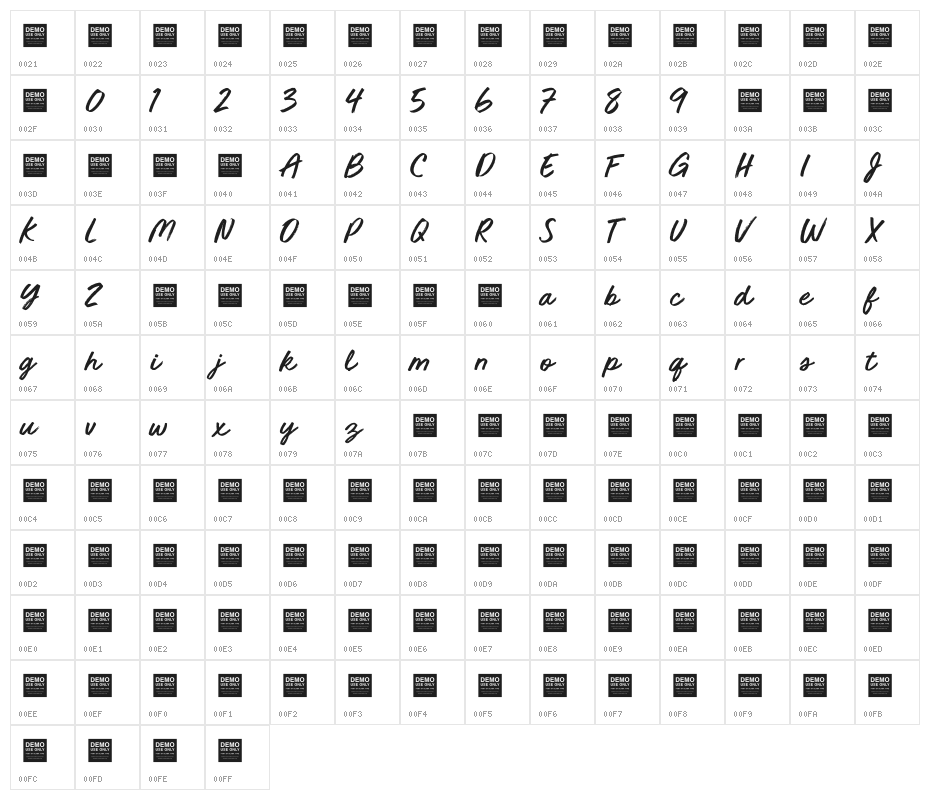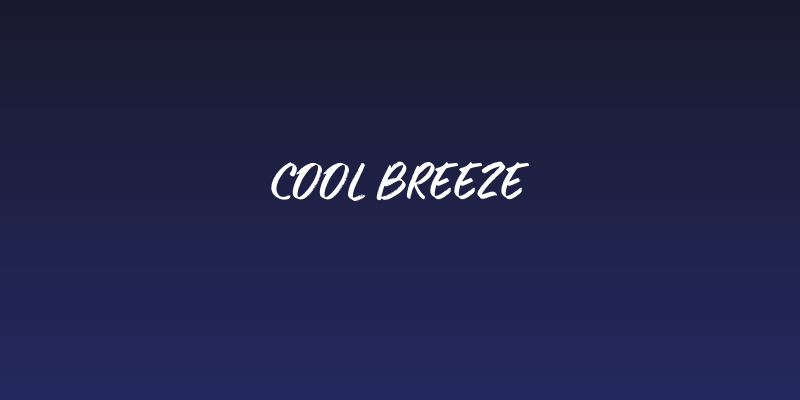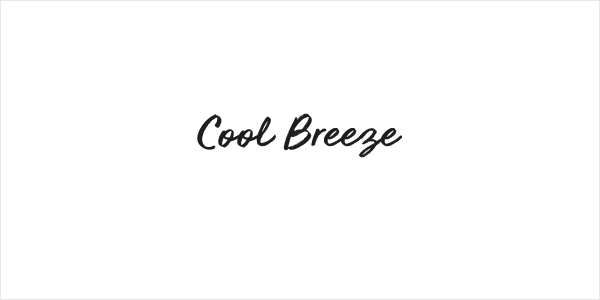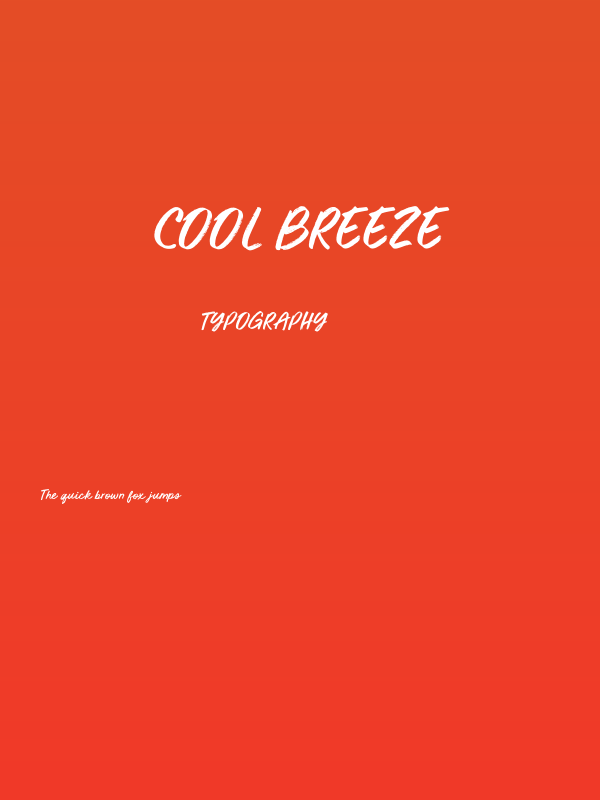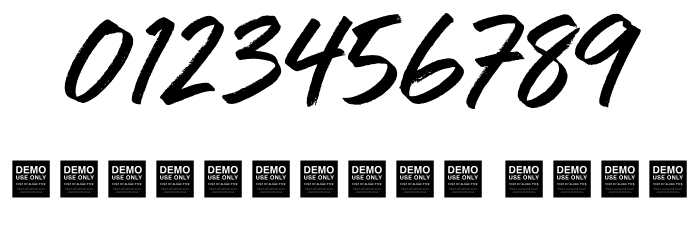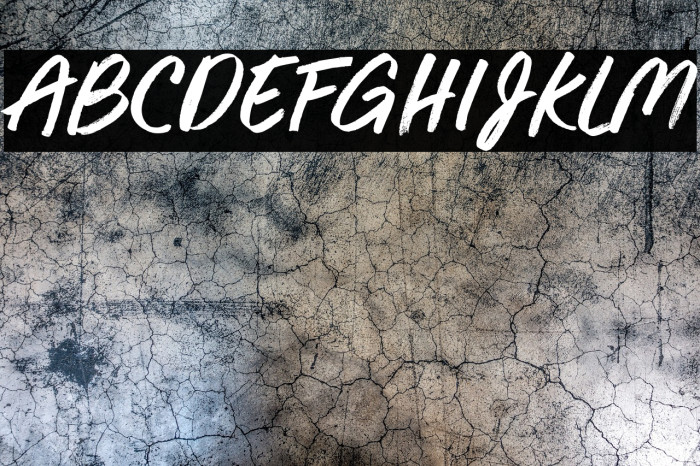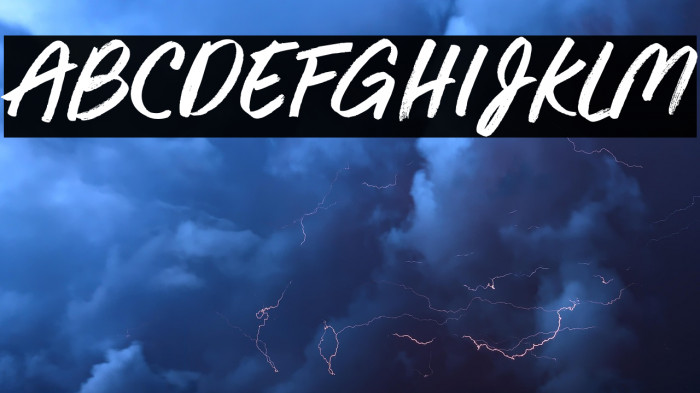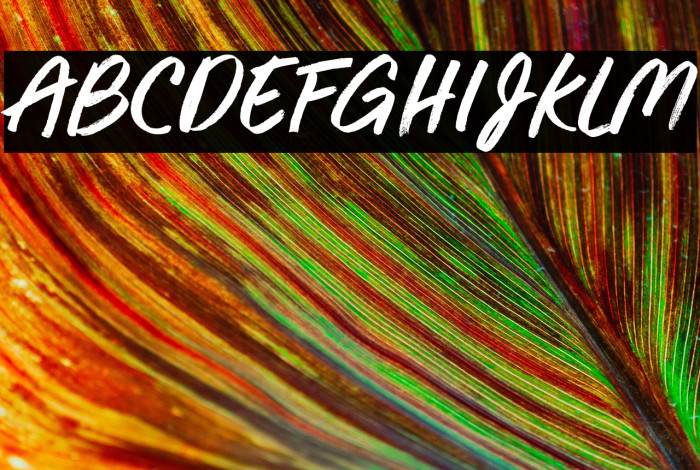
Cool Breeze Font
Cool Breeze Description
This font exhibits a dynamic and energetic handwritten style, characterized by its bold and fluid strokes. The letters have a natural, flowing appearance, reminiscent of casual brush lettering. Each character is crafted with a sense of movement and spontaneity, giving the text a lively and personal touch. The uppercase and lowercase letters maintain a consistent style, with slightly varying stroke thickness that adds to the font's charm. The numerals are equally expressive, matching the overall aesthetic of the alphabet. This font is perfect for projects that require a personal and artistic flair.